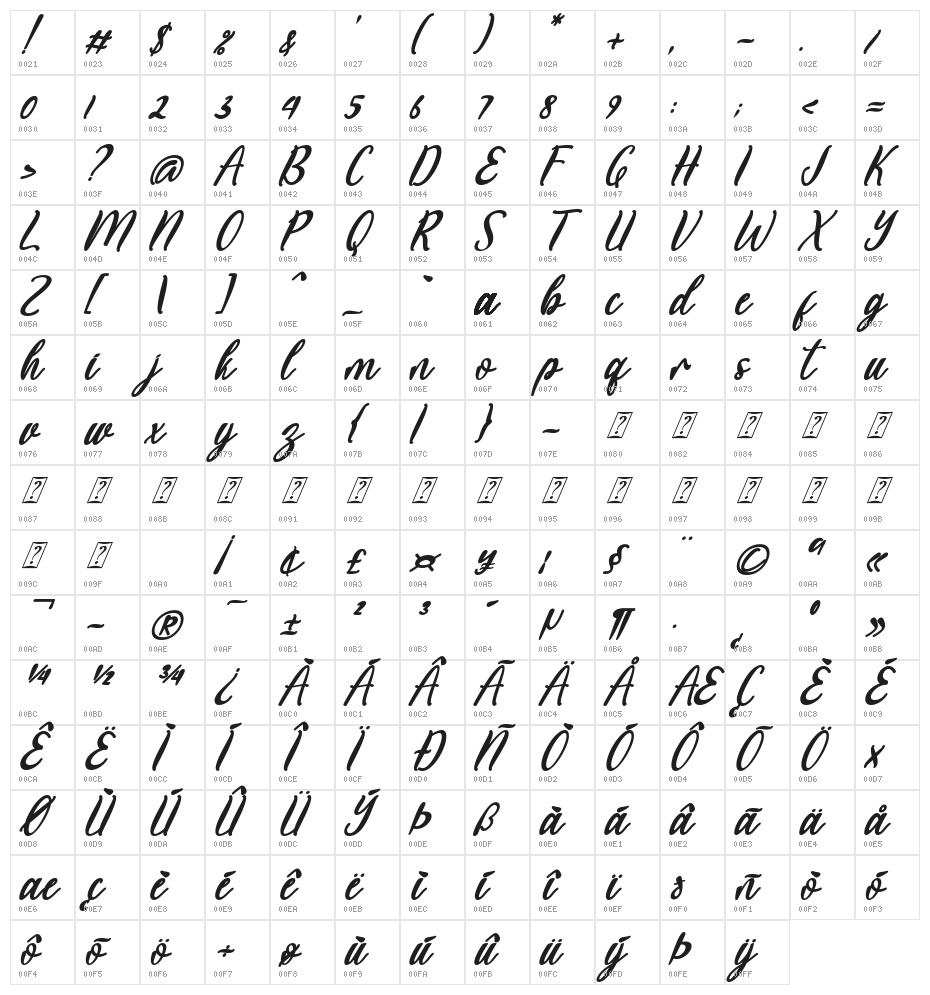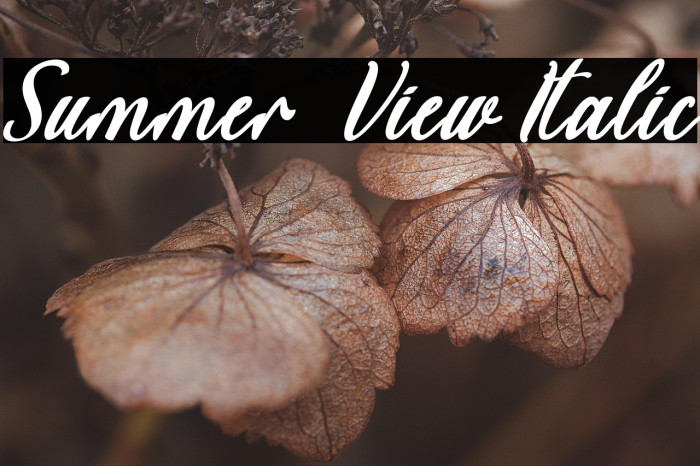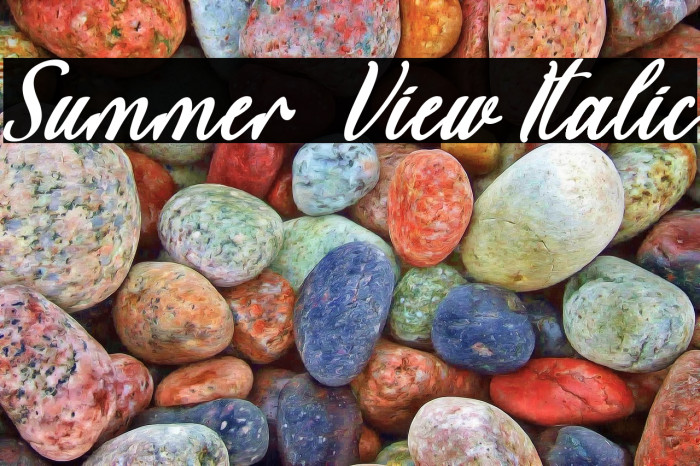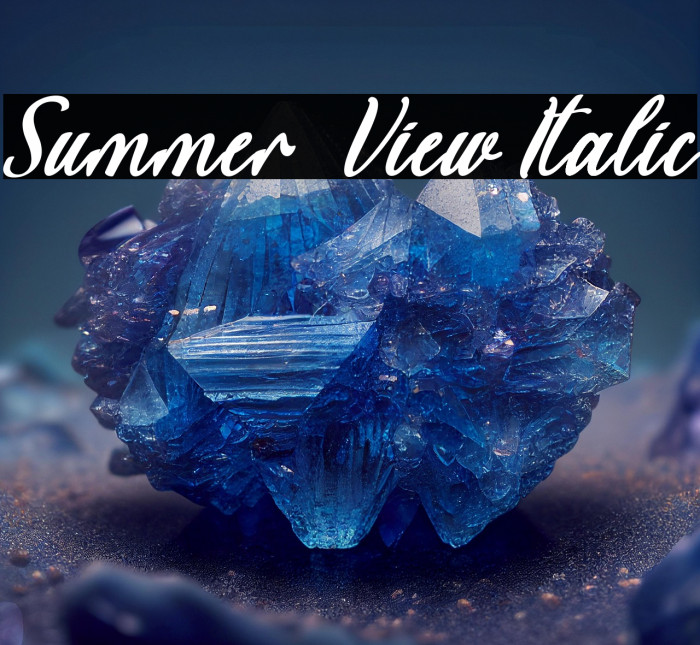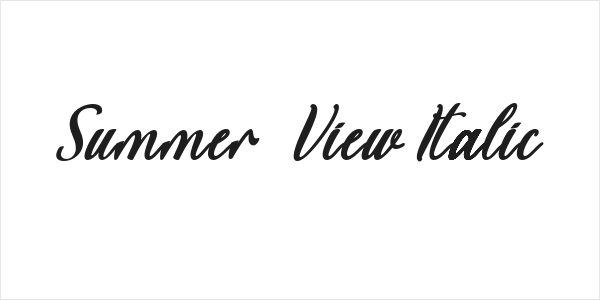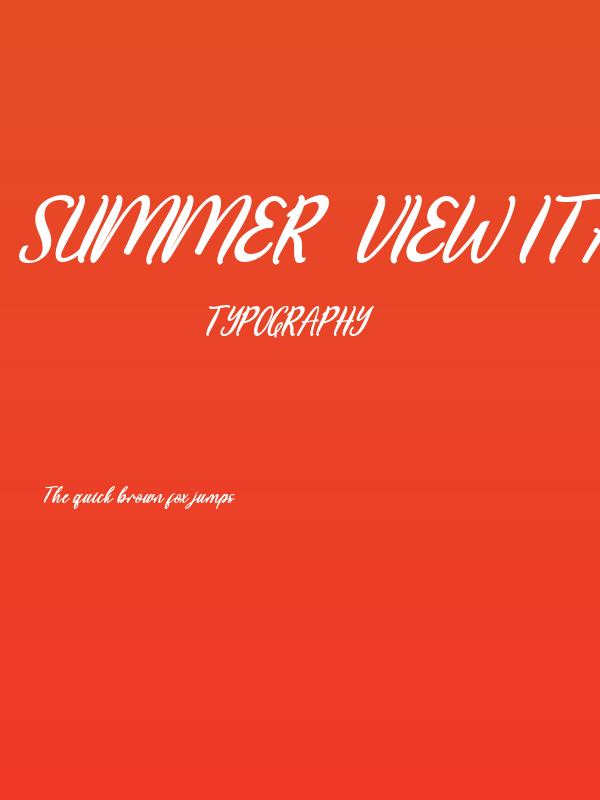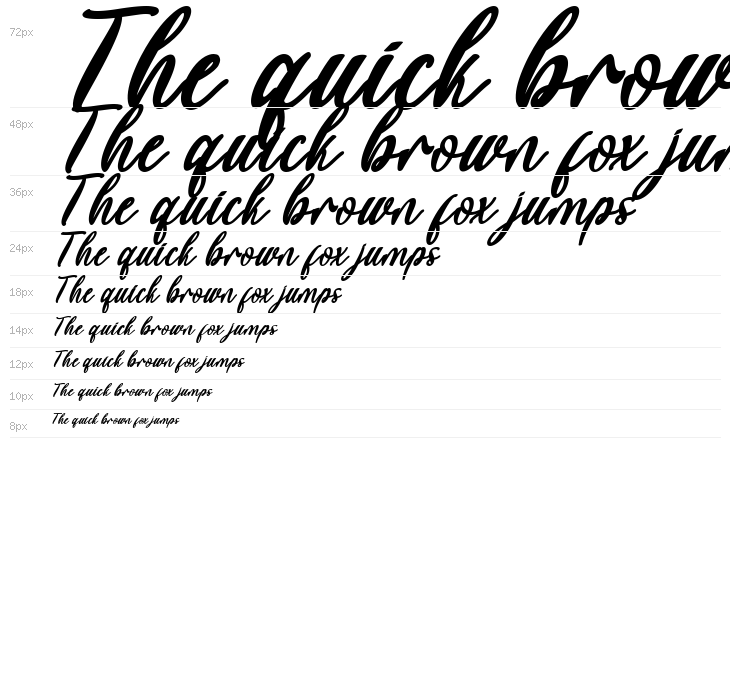
Summer View Italic Font
Summer View Italic Description
This font features a dynamic and flowing script style, characterized by its italicized and cursive appearance. The letters are interconnected, creating a sense of movement and elegance. The strokes are bold and consistent, providing a strong visual impact. The uppercase letters maintain a uniform height, while the lowercase letters exhibit a slight slant, enhancing the cursive effect. The numerals and special characters are designed to match the overall fluidity and style of the alphabet, ensuring a cohesive look across all characters.